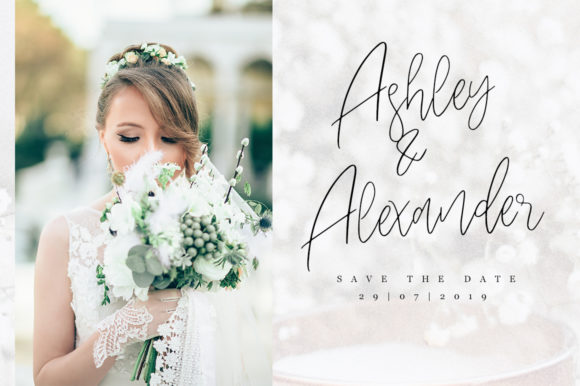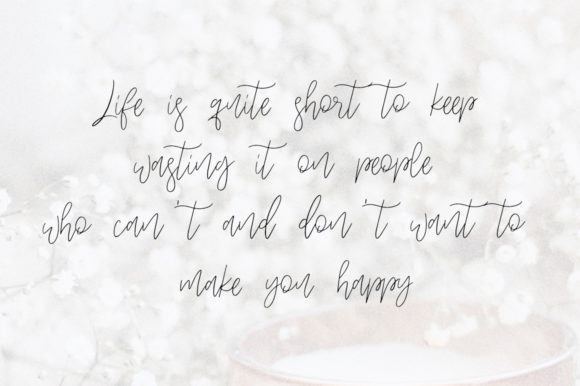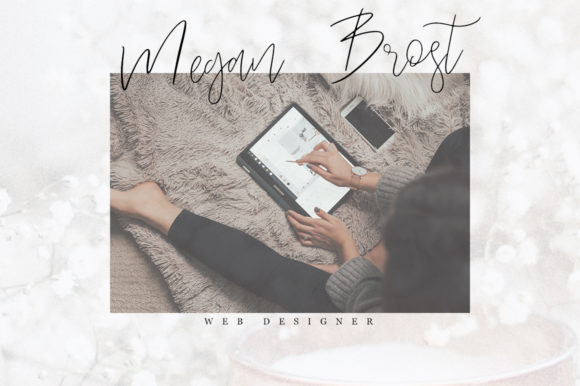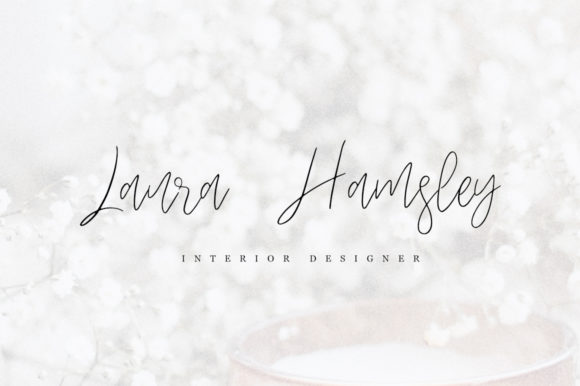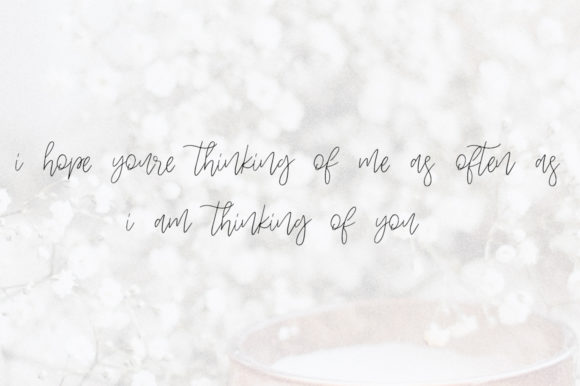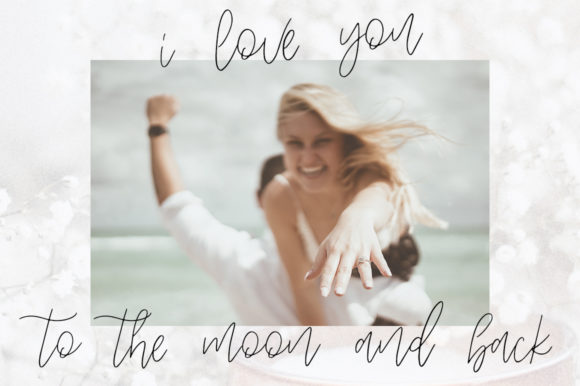
HomeScript FontsLardio Font Script Fonts Lardio Font FacebookXPinterestWhatsApp Lardio Font Poster 2 Lardio Font Poster 3 Lardio Font Poster 4 Lardio Font Poster 5 Lardio Font Poster 6 Lardio Font Poster 7 About Lardio Font Lardio is a stunningly elegant handwritten font with an authentic twist. Fall in love with its effortless beauty. DOWNLOAD ON CREATIVE FABRICAThis font is sold and delivered by Creative Fabrica. Font Canyon may earn a commission if you buy through this link. People also explored My Lovely Heart Font Better Land Font Beautiful Mind Font Yeah Font Make Letters Font Ramadhan Mubarak Font Snail Slow Antarlika Font Valentine Font 337 0 TagsLardio Font Previous articleAtomic Robusta FontNext articlePoppy Shower Font LEAVE A REPLY Cancel reply Comment: Please enter your comment! Name:* Please enter your name here Email:* You have entered an incorrect email address! Please enter your email address here Website: Save my name, email, and website in this browser for the next time I comment. Personal Use Free Street Cred Personal Use Free Read more about this font Quick Count Personal Use Free Read more about this font Evensong Hollow Personal Use Free Read more about this font Boston Traffic Personal Use Free Read more about this font BLOG The 10 Best Handwriting Fonts to Add Personality to Your Designs 10 of the Best Handwriting Fonts for Adding Personality to Your Designs There will undoubtedly be no other better choice than handwriting fonts to give... Fonts That Capture the Spirit of New York City Transform Your Website: Elevate Your Typography with 7 Best Web Font Generators Modern Sans-Serif Fonts That Brands Love in 2025